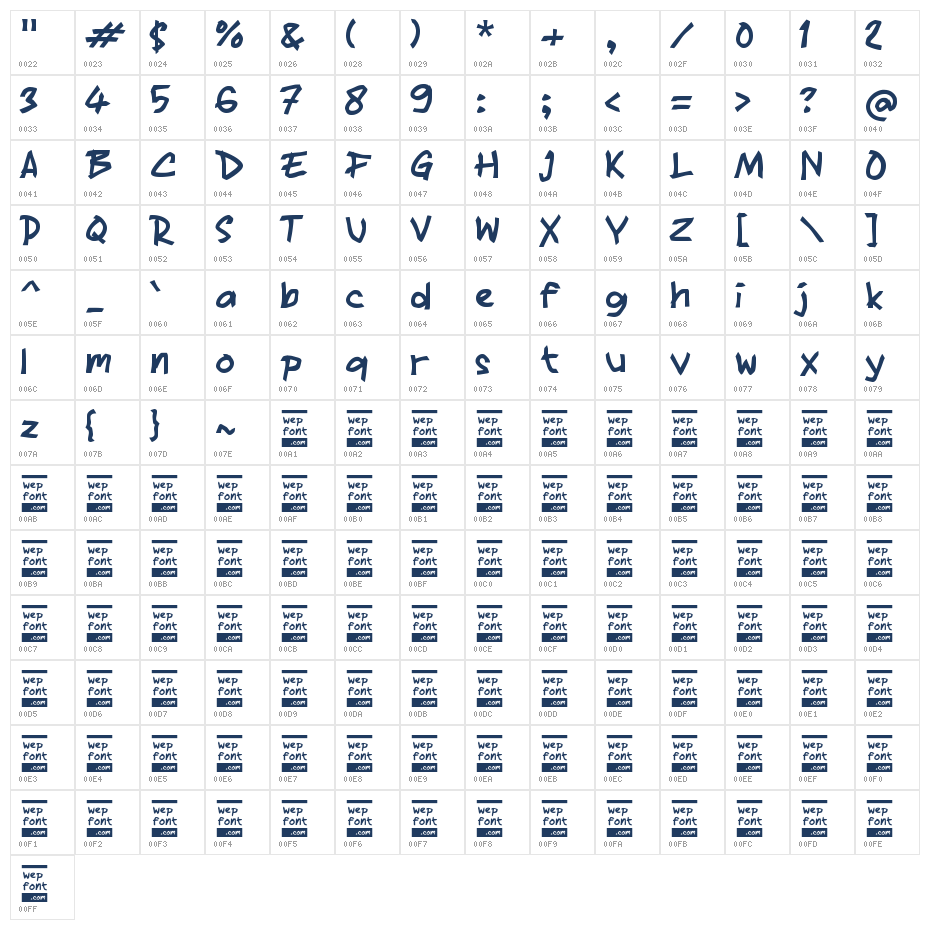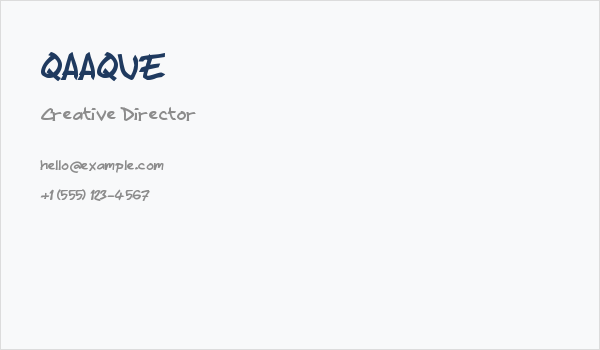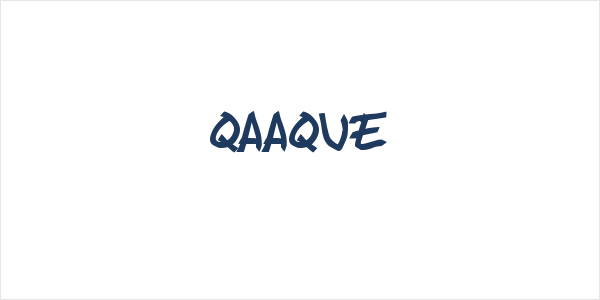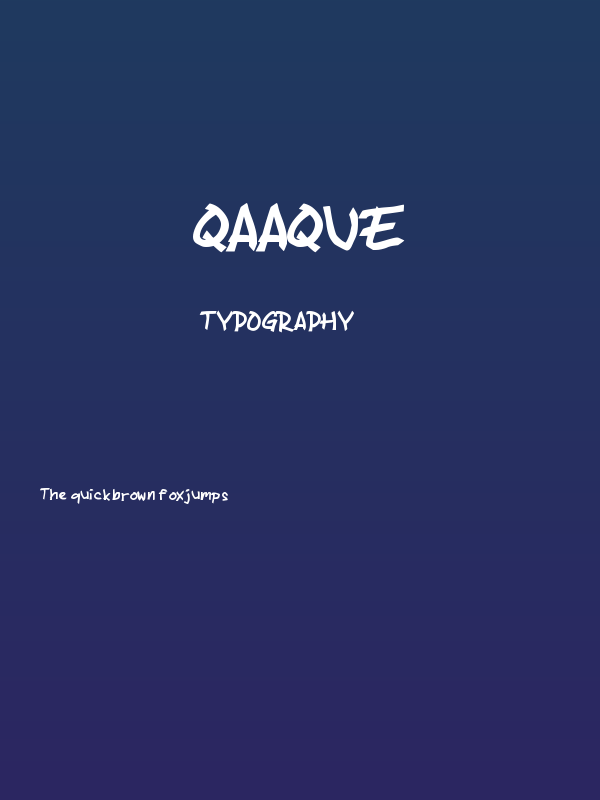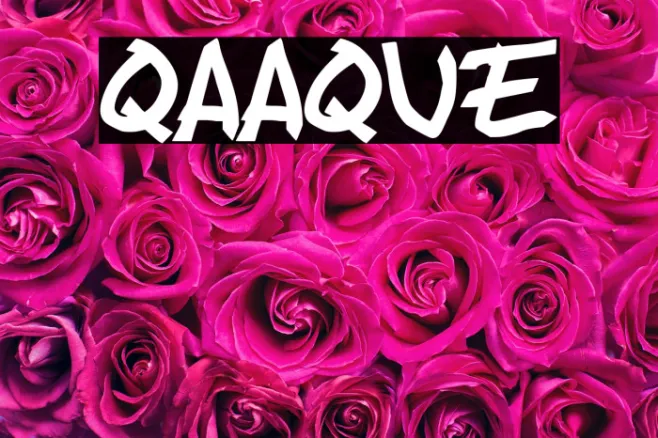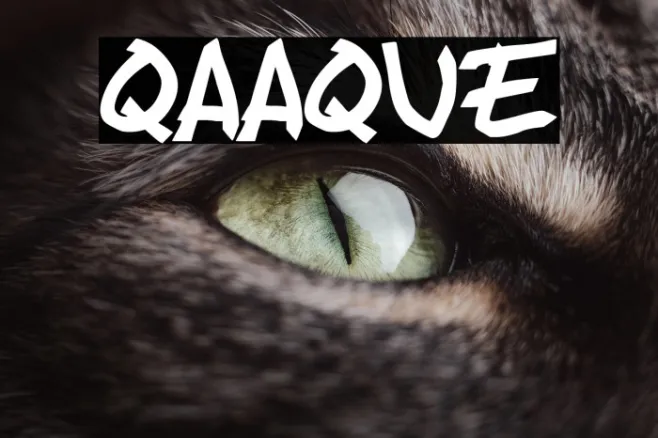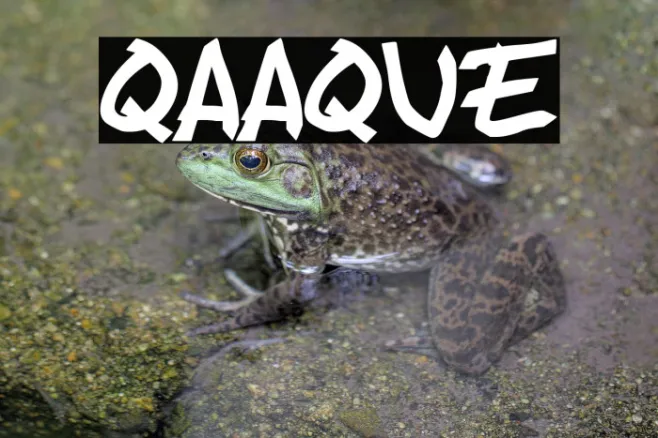
QAAQUE Font
QAAQUE Description
A playful, handwritten style font with irregular, dynamic strokes that give it an energetic and casual appearance.
| Use Case | Headlines, Posters, Children's books, Creative projects |